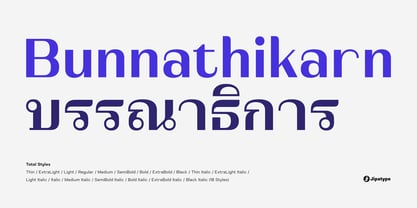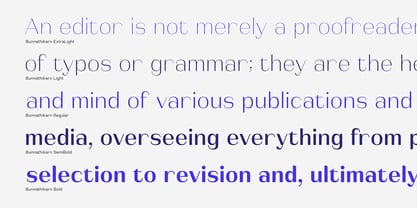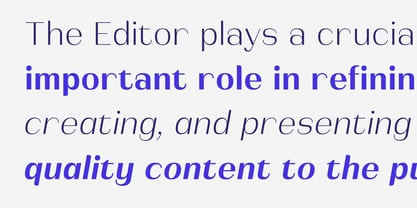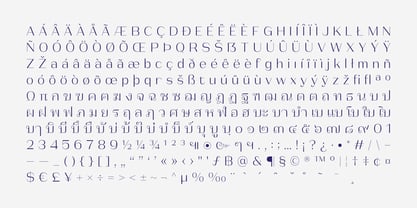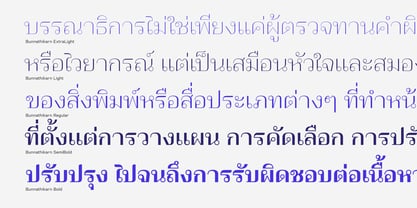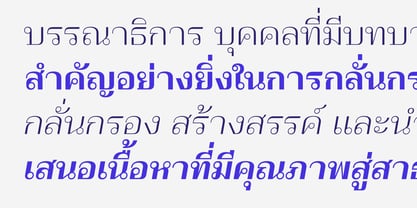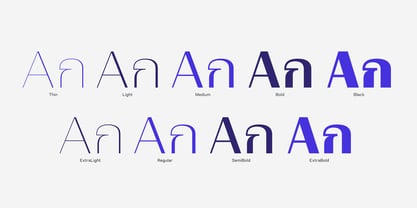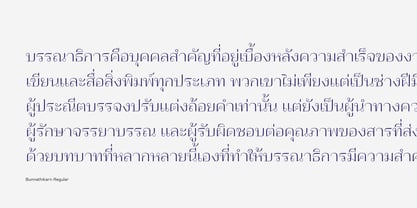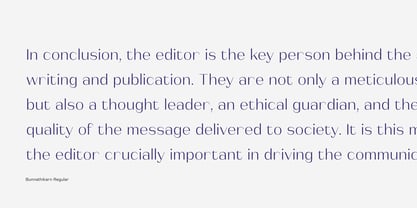
Bunnathikarn
by Jipatype
The Bunnathikarn Font Family was designed by Anupap Jaichumnan and published by Jipatype. Bunnathikarn contains 18 styles and family package options. More about this family
Bunnathikarn is a High-Contrast Sans Serif typeface designed to bring a sense of luxury, elegance, and modernity to your communication. The font’s most distinctive feature is its extremely high stroke contrast, which is characterized by thick, stable main strokes paired with delicate, thin hairlines. This dramatic contrast in weight gives the typeface a sharp, stylish, and clean aesthetic. The structure of Bunnathikarn is well-balanced and highly organized, making it easy to read despite its refined details. The family is comprehensive, offering 18 styles ranging from Thin to Black, including a full set of accompanying italics. This extensive weight range allows designers to create effective hierarchy and variation in their layouts. The Italics are specially designed to be fluid and graceful, adding an interesting emotional dimension to emphasized text. With its distinctive and upscale, Bunnathikarn is perfectly suited for design work that requires a premium, highly attention-grabbing image. It is ideal as a Display Font for major headlines, logos, and corporate identity for luxury brands, lifestyle products, fashion magazines, art publications. The mid-range weights can also be used for body text where credibility and sophisticated presentation are key.
Designers: Anupap Jaichumnan
Foundry: Jipatype
Jipatype is a type foundry founded and operated solely by Anupap Jaichamnarn, based in Bangkok, Thailand. Officially established in 2022, the foundry's journey began in 2019. The name "Jipatype" is derived from the Thai word “Jipatha” (จิปาถะ), meaning "miscellaneous" or "variety." This name reflects the diverse design concepts and influences that shape Jipatype’s versatile font collections.